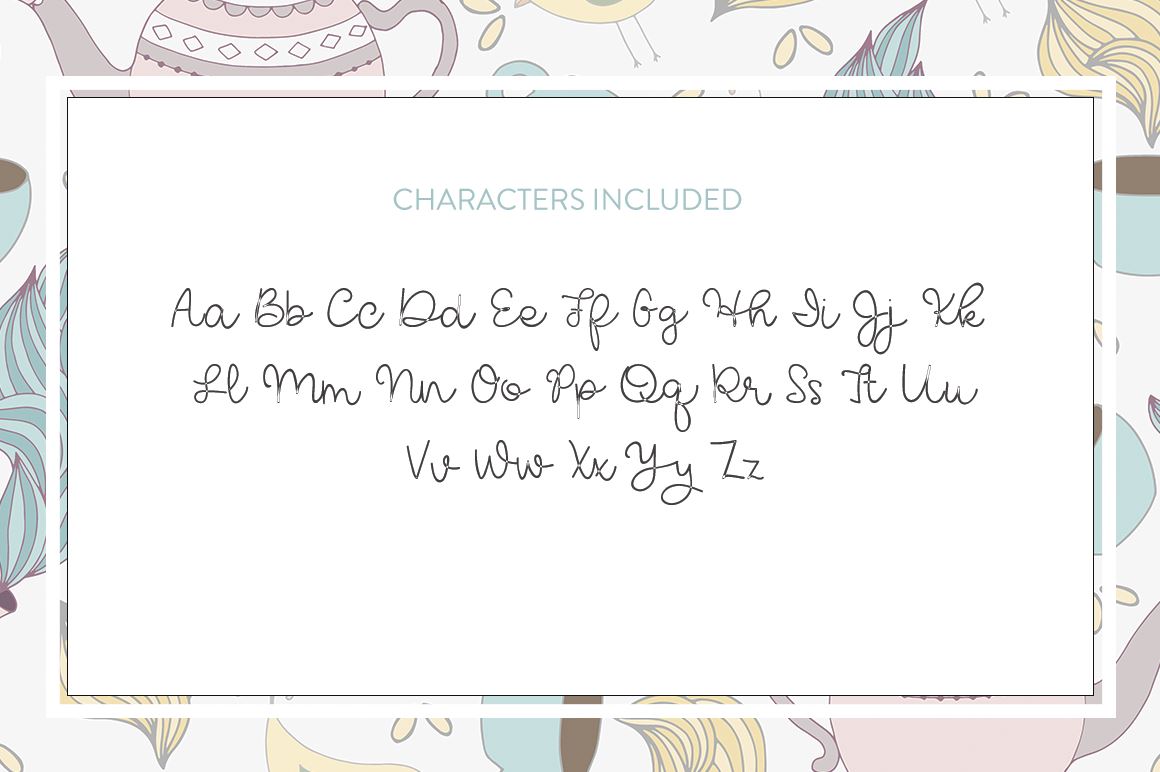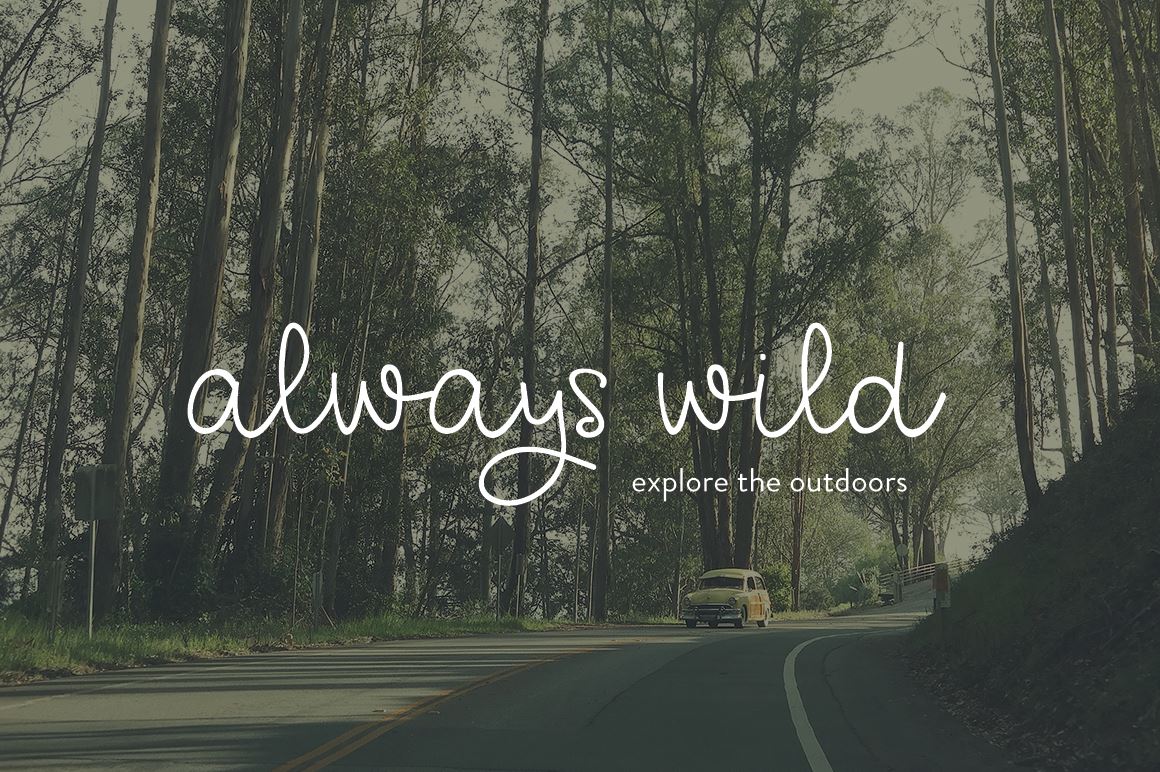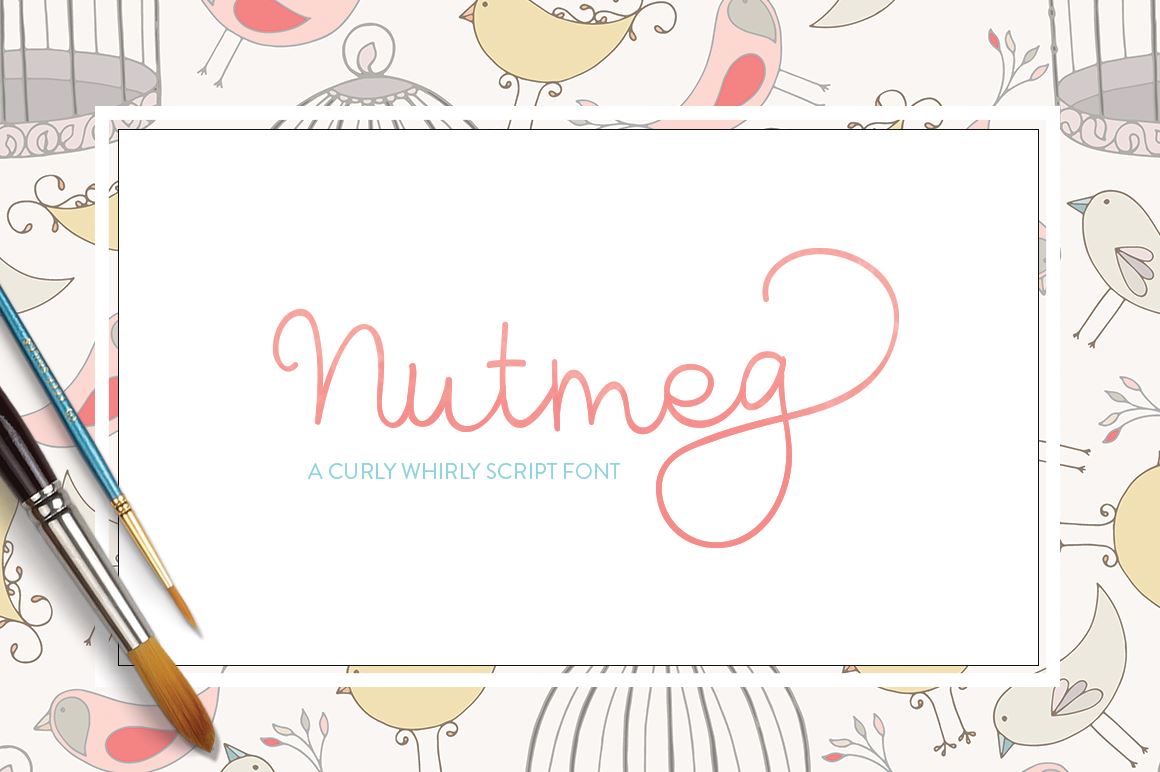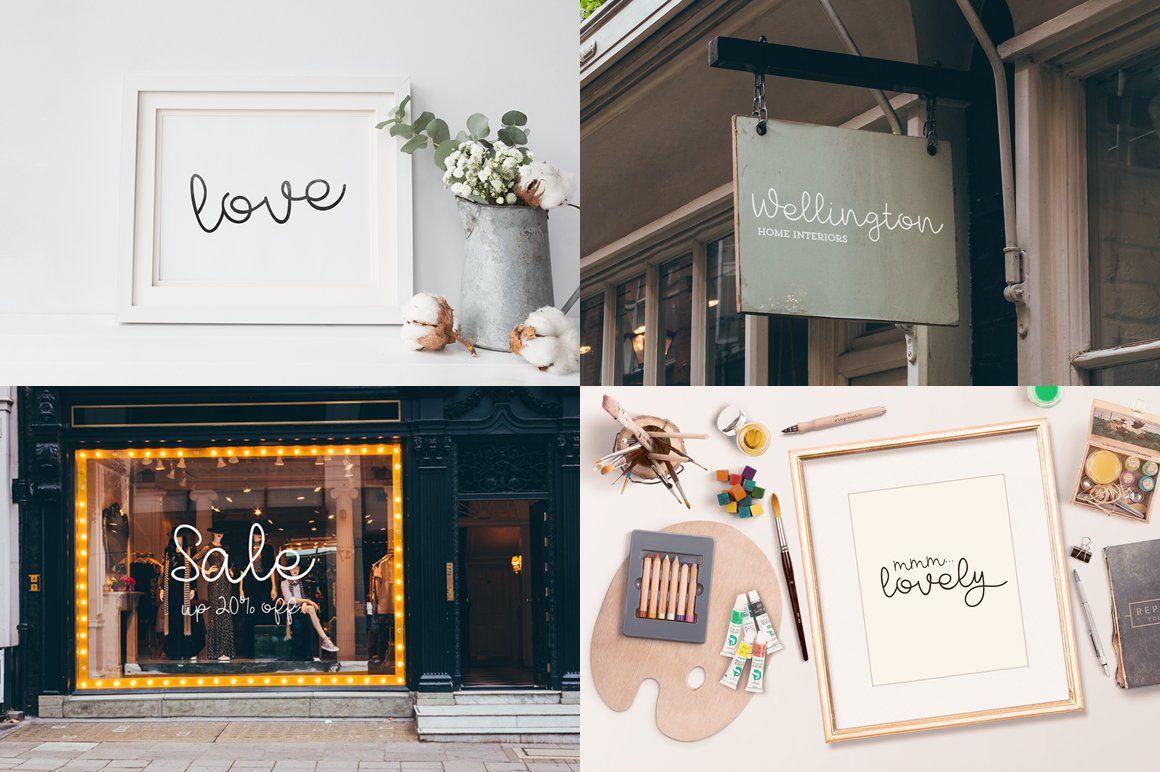
About A Nutmeg Script
Nutmeg is a brand new curly swirly based hand-drawn font. All characters are 100% accessible on programs. This includes the special alternate characters that come with the set. Including over 100 different hand drawn characters. WHATS INCLUDED? Nutmeg.otf & Nutmeg.ttf Web fonts included (EOT, SVG, WOFF & WOFF2 Files) All characters are 100% accessible without Open Type Features Download within a few clicks and use across a huge range of programs including Photoshop, InDesign, Illustrator and Microsoft Word as well as many more. There are no Open Type Features included in this font, meaning all characters can be used across on any programs that support fonts. Please note the mock ups used above are not included. If you have any questions or problems, please don’t hesitate to message me.